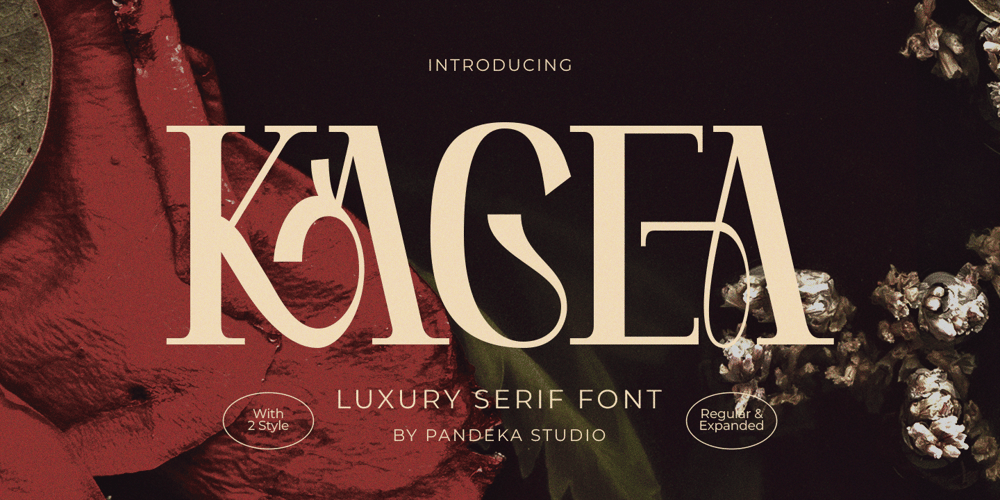
Kagea Font Family was designed by Sagara Nararya and published by Pandeka Studio. Kagea contains 2 styles and family package options. Kagea – Elegant Luxury SerifKagea is a sophisticated serif typeface available in regular and condensed styles, featuring 50+ ligatures and alternates with multilingual support. Its refined proportions and chic lettering make it ideal for high-end branding, editorial layouts, premium packaging, fashion labels, and luxury product designs.What’s Included: Main Files formats 2 Style: Regular and Condensed Full Character Set: Uppercase, lowercase, numbers, symbols, and punctuation 50+ Ligatures and alternates Easy to Use: Works on both PC & Mac Compatible with Adobe Illustrator, Photoshop, Microsoft Word, Canva, and more PUA Encoded: Fully accessible without additional software Language Support: Danish, English, Estonian, Filipino, Finnish, French, Friulian, Galician, German, Gusii, Indonesian, Irish, Italian, Luxembourgish, Norwegian Bokmål, Norwegian Nynorsk, Nyankole, Oromo, Portuguese, Romansh, Rombo, Spanish, Swedish, Swiss-German, Uzbek (Latin)Elegant Luxury Serif Sophisticated Typography Timeless Design Chic Lettering Premium Aesthetic Stylish Typeface Unique StyleThank you and happy designing!Pandeka Studio